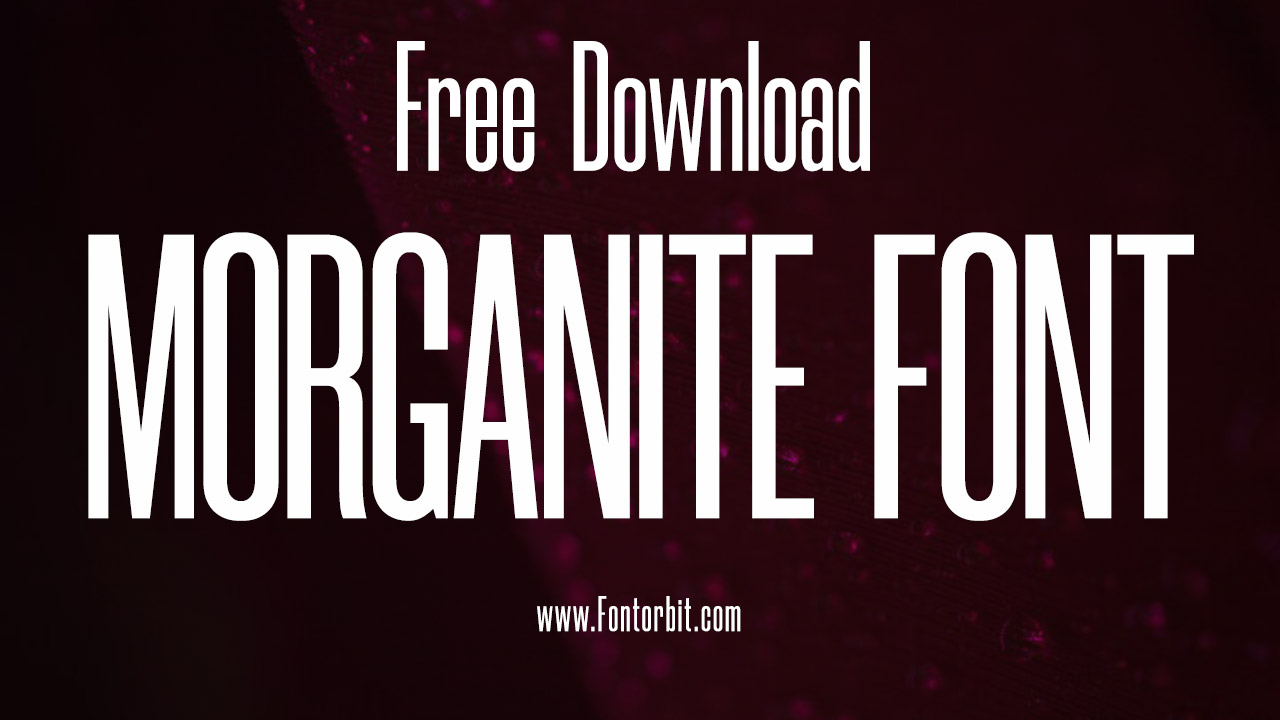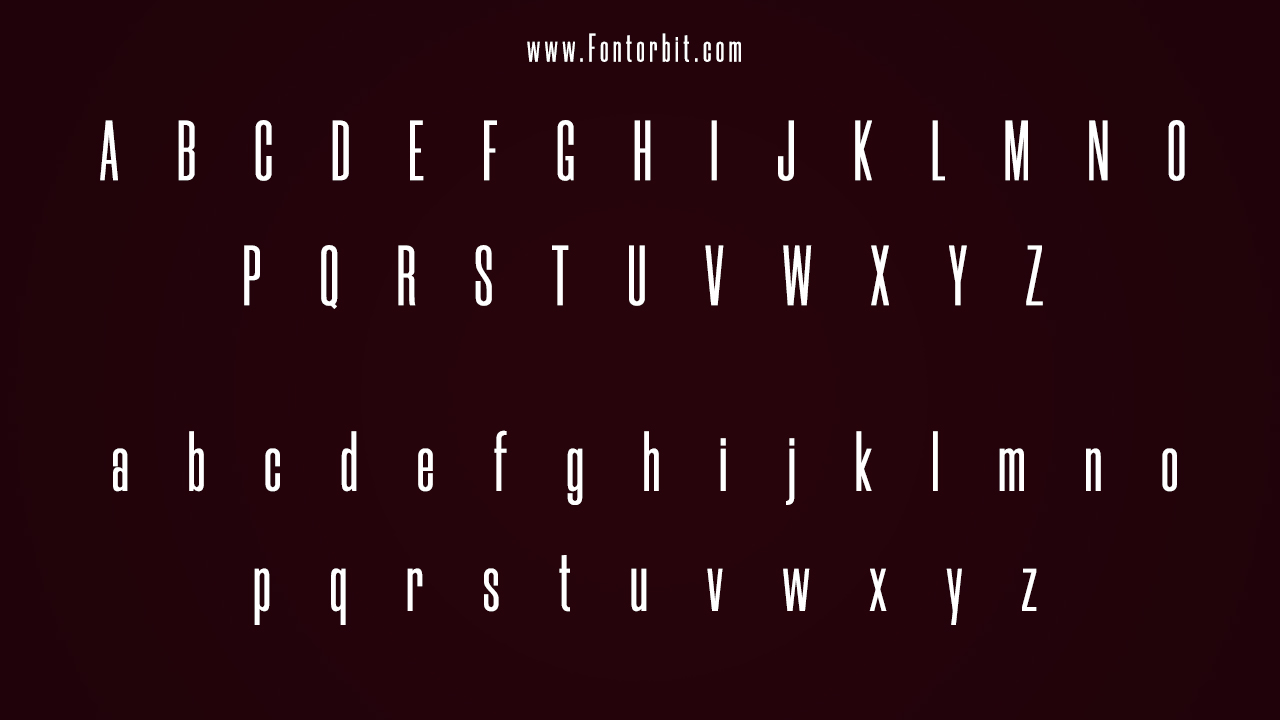
The Morganite Font, designed by Rajesh Rajput, is a modern sans-serif typeface known for its clean lines and versatile range. Featuring 18 styles from Thin to Black, Morganite is perfect for a wide array of design projects that require a sleek and adaptable typeface.
The Morganite Font Family
Morganite shines in various applications, from professional branding to creative projects. Its extensive range of weights ensures that it can meet diverse typographic needs, providing both subtlety and impact depending on the design context.
- Advertising
Morganite Font excels in delivering modern and clean aesthetics. Its range of styles is perfect for everything from sleek, professional documents to dynamic and engaging web design. The font’s flexibility makes it a reliable choice for a broad spectrum of projects.
Morganite Font’s modern design and extensive style range make it an excellent choice for both personal and commercial projects. Its versatility ensures it can handle a wide variety of typographic tasks, adding a professional and contemporary touch to any design.
1.What Is The Morganite Font?
Morganite is a modern sans-serif typeface designed by Rajesh Rajput. It features a range of styles, from Thin to Black, suitable for various design applications.
2.How To Choose The Right Style For Morganite Font?
Select the style based on the weight and emphasis required for your project. Lighter weights are ideal for body text and subtle designs, while heavier weights are perfect for headlines and strong visual statements.
3.What Are The Key Features Of The Morganite Font?
Morganite is characterized by its clean lines, balanced proportions, and extensive range of weights, providing a modern and adaptable typeface for any design need.
4.How To Use The Morganite Font In Design?
Utilize Morganite for professional branding, editorial work, and digital content to achieve a sleek and modern aesthetic. Its variety of styles allows for both subtle and bold design choices.